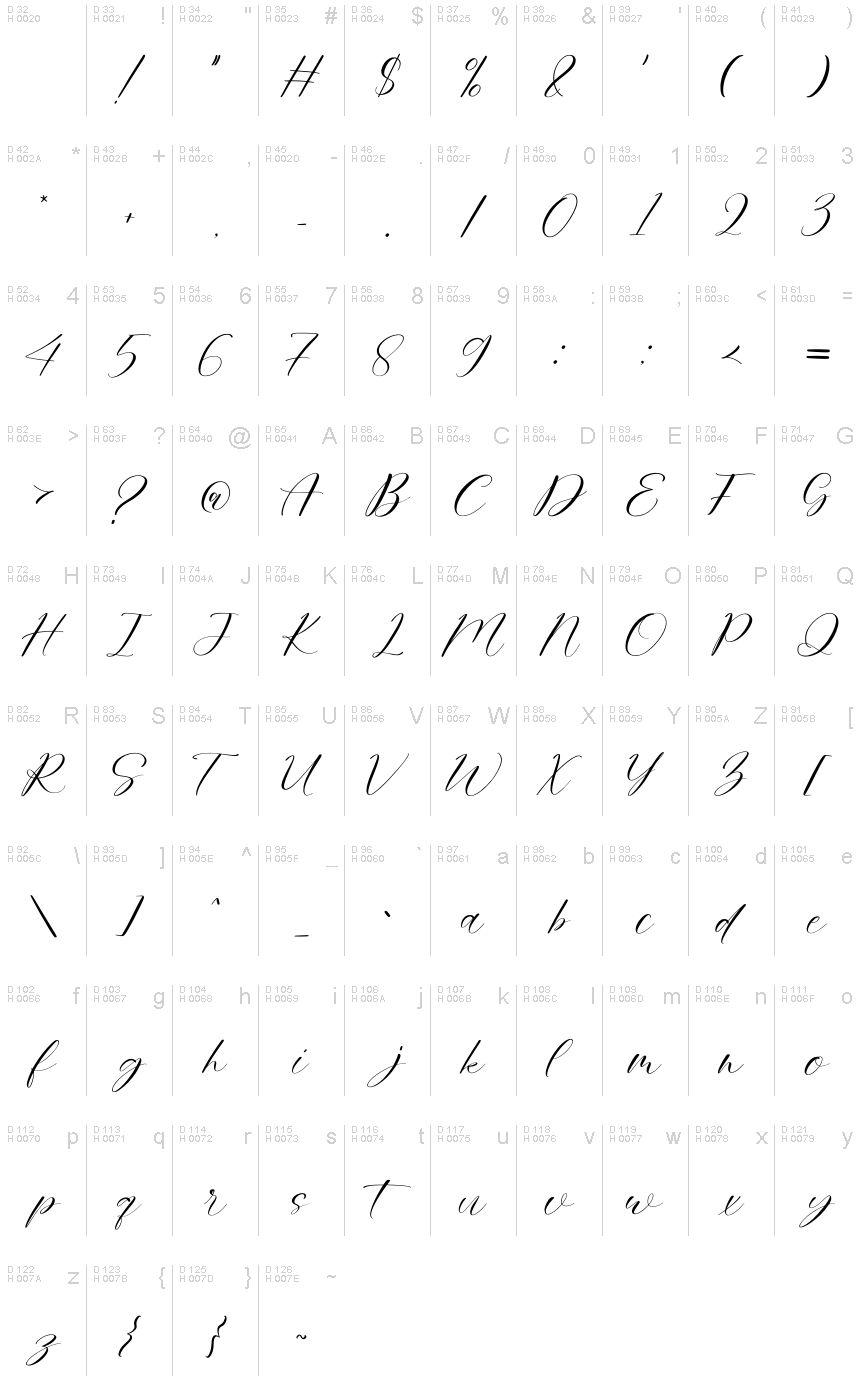
Rathie Demo
Rathie, a captivating handwritten font crafted by the talented designers at Ribeth Studio, exudes a harmonious blend of elegance and playfulness. This alluring script showcases a seamless flow of graceful strokes, each letter intricately connected to create a sense of effortless charm. The organic, hand-drawn aesthetic of Rathie evokes a warm, personal tone, making it an ideal choice for a wide range of design applications.
Rathie's versatility shines through its ability to adapt to various creative contexts. From bespoke branding and wedding invitations to editorial layouts and product packaging, this font's distinctive flair can elevate any design project with its timeless appeal. Its natural fluidity and subtle variability in letter forms lend themselves beautifully to projects that seek to convey a personal, artisanal touch.